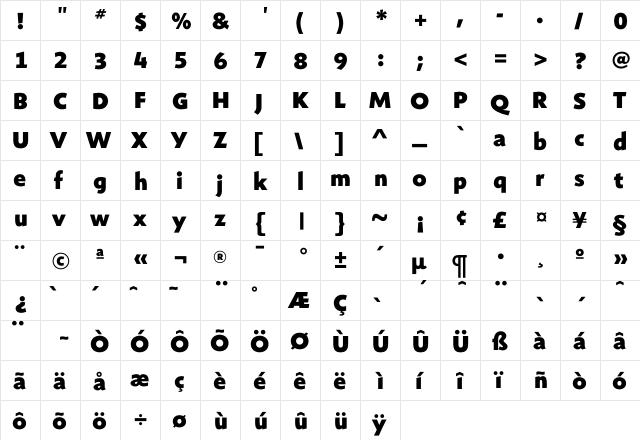
ShinnExtraBold Regular
Design Context for ShinnExtraBold Typeface
ShinnExtraBold takes a measured approach to typography — its balanced proportions and neutral character make it a reliable workhorse for both digital and print work. Its bold stroke weight gives it real presence on the page.